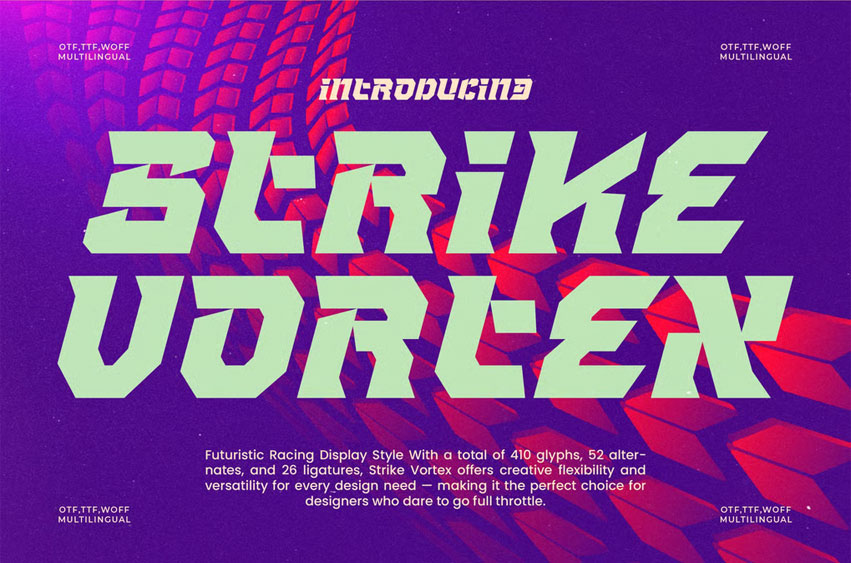
Strike Vortex Font
Strike Vortex Font is a futuristic racing display font designed with bold energy and dynamic angles. Featuring 26 ligatures, 52 alternates, and a total of 410 glyphs, it delivers versatility and creative power for any project.
Perfect for sports branding, gaming titles, automotive designs, and modern posters, Strike Vortex embodies speed, strength, and cutting-edge style — ideal for designers seeking a high-impact typographic statement.